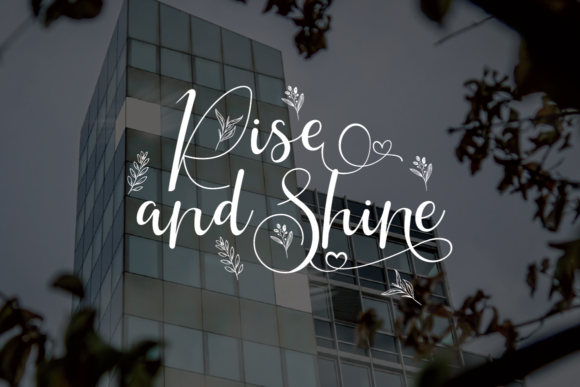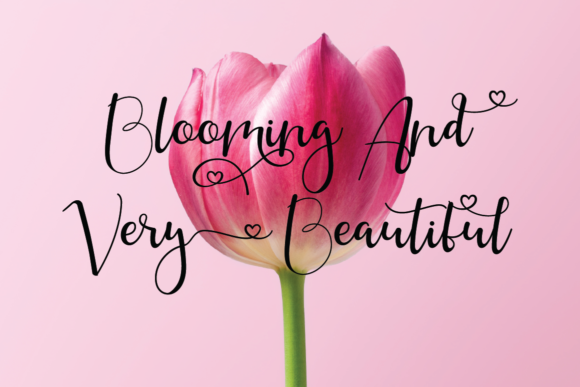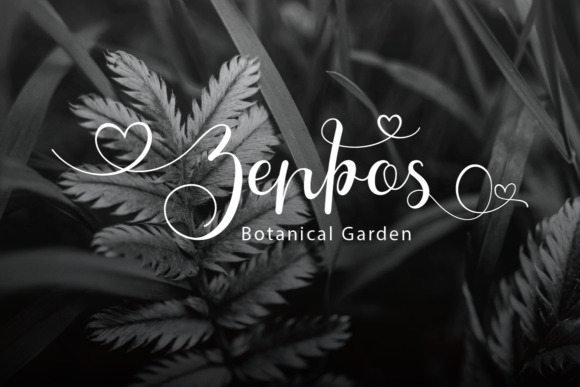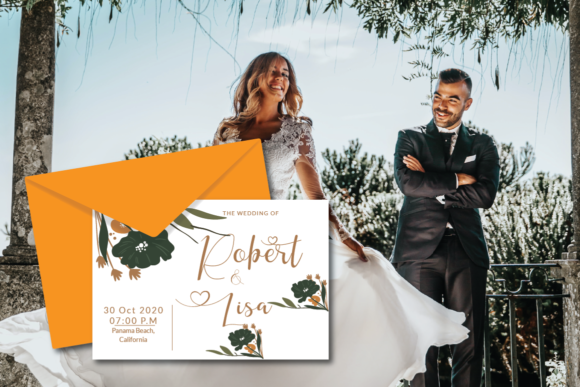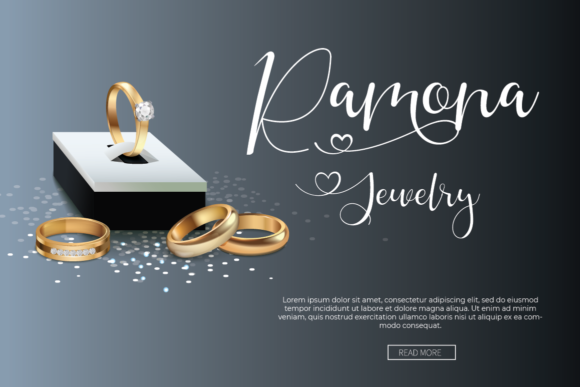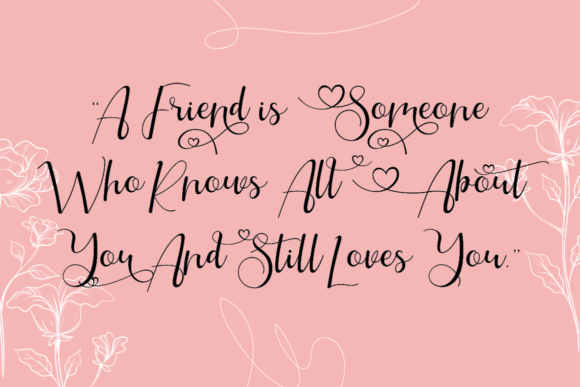
Gayesha Font: Elevate Your Designs with Elegance and Sophistication
In the world of typography, few fonts manage to convey the essence of elegance and sophistication as effectively as Gayesha Font. This beautiful, handwritten font has captured the hearts of designers and crafters alike, and for good reason. With its flowing lines, stunning glyphs, and incredible versatility, Gayesha Font is the perfect choice for a wide range of design projects.
The Characteristics of Gayesha Font
So, what makes Gayesha Font so special? For starters, its varying baseline gives it a unique, organic feel that’s perfect for designs that require a touch of whimsy and personality. The smooth lines and gorgeous glyphs add to its elegance, making it a font that’s both refined and eye-catching. Additionally, Gayesha Font features stunning alternates, which allow designers to add even more flair to their work.
Perfect for Wedding and Greeting Card Designs
One of the most popular uses for Gayesha Font is in wedding and greeting card designs. Its elegant, flowing lines make it perfect for wedding invitations, thank you cards, and other stationery. The font’s sophisticated feel also makes it a great choice for quotes, greeting cards, and other designs that require a touch of refinement. Whether you’re a designer looking to create beautiful wedding stationery or a crafter making handmade cards, Gayesha Font is an excellent choice.
Versatility Beyond Stationery
While Gayesha Font is certainly well-suited to stationery and card designs, its versatility extends far beyond these applications. The font’s elegant feel makes it a great choice for logos, business cards, and other branding materials. It’s also perfect for designers looking to add a touch of sophistication to their website designs, social media graphics, and other digital projects.
Why Designers and Crafters Love Gayesha Font
So, why have designers and crafters fallen in love with Gayesha Font? For one, its unique blend of elegance and whimsy makes it a standout in the world of typography. The font’s versatility is also a major draw, as it can be used in a wide range of design projects. Additionally, Gayesha Font’s gorgeous glyphs and alternates make it easy to add a touch of personality to any design.
Tips for Using Gayesha Font
To get the most out of Gayesha Font, here are a few tips to keep in mind:
- Experiment with different sizes and styles to find the perfect fit for your design.
- Take advantage of the font’s gorgeous glyphs and alternates to add personality to your work.
- Pair Gayesha Font with other elegant fonts to create a sophisticated, refined look.
- Don’t be afraid to get creative and try out new and innovative design ideas.
In conclusion, Gayesha Font is a truly exceptional font that offers a unique blend of elegance, sophistication, and whimsy. Its versatility, gorgeous glyphs, and stunning alternates make it perfect for a wide range of design projects, from wedding stationery to logos and branding materials. Whether you’re a designer or crafter, Gayesha Font is an excellent choice for anyone looking to elevate their designs and add a touch of refinement to their work.